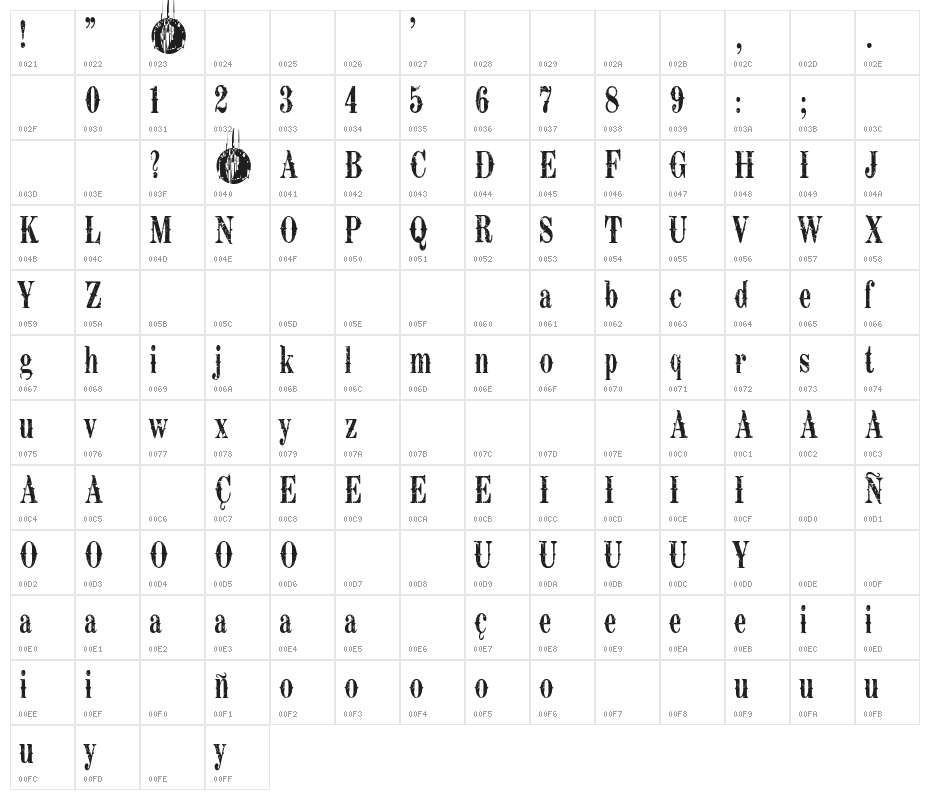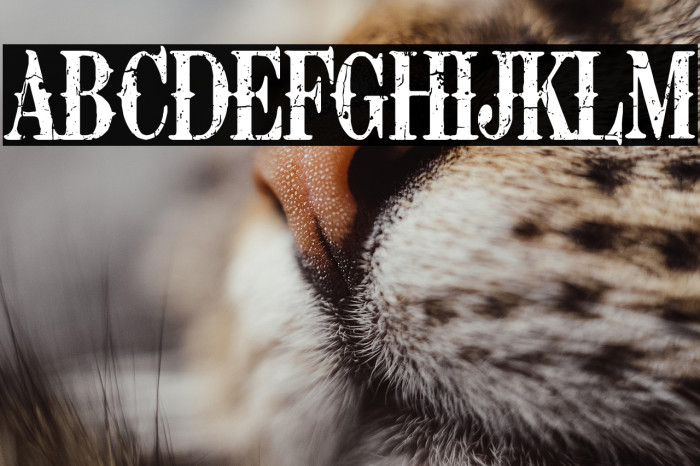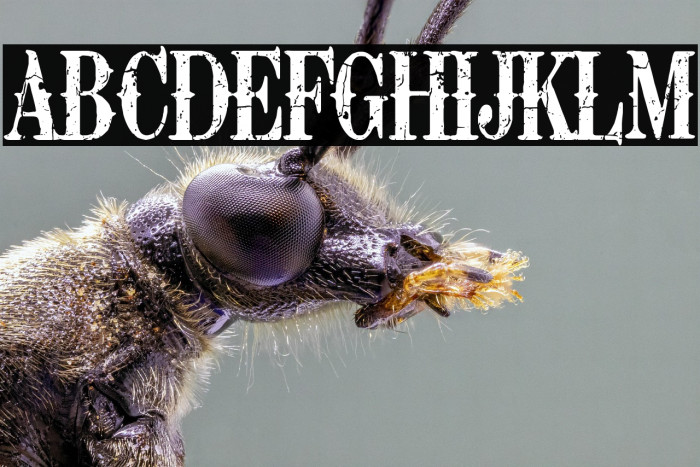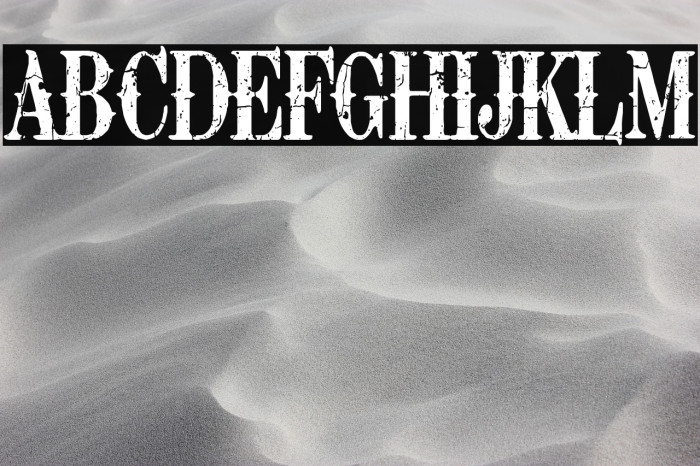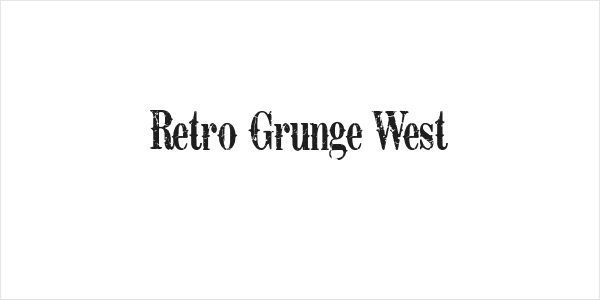
Retro Grunge West Font
Retro Grunge West Description
This font features a rugged, distressed style that evokes a vintage, grunge aesthetic. The characters are bold and heavily textured, giving them a worn, weathered appearance. This style is reminiscent of old western signage or vintage posters, with a strong emphasis on a rustic and gritty look. The uppercase and lowercase letters maintain a consistent design, with rough edges and a slightly uneven baseline that adds to the handmade feel. The numerals and special characters follow the same distressed pattern, ensuring a cohesive look across all text elements.
| Proposed Projects | Ideal for projects needing a retro or western theme, such as posters, album covers, or branding for rustic or vintage-inspired businesses. |